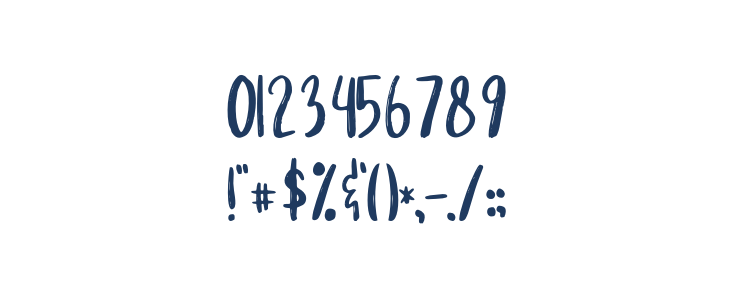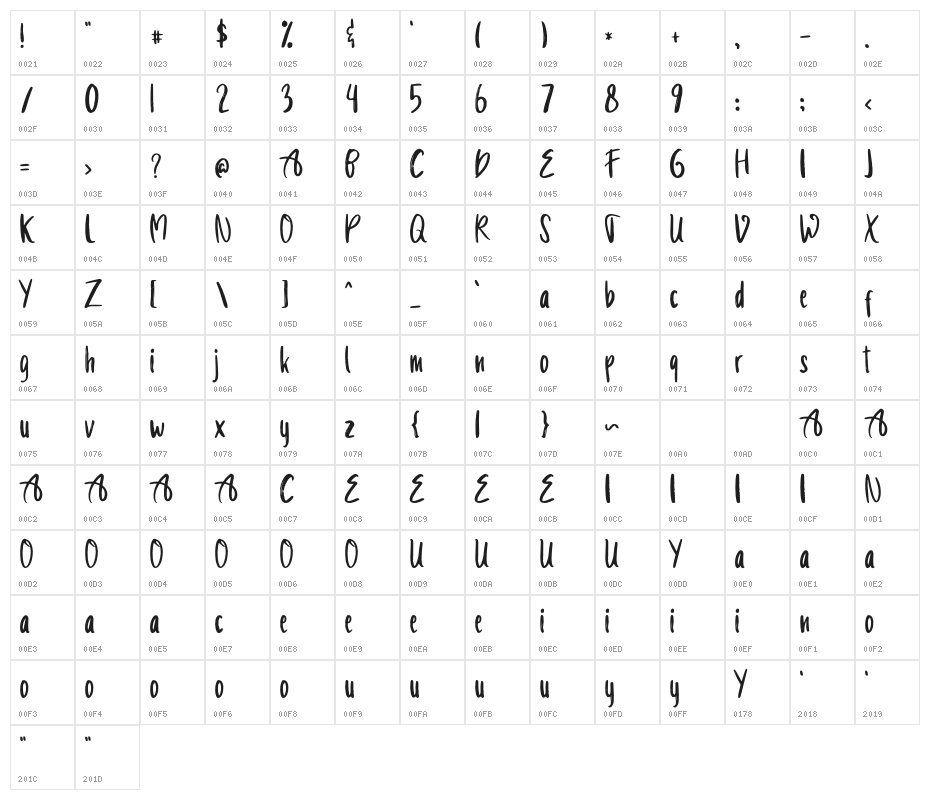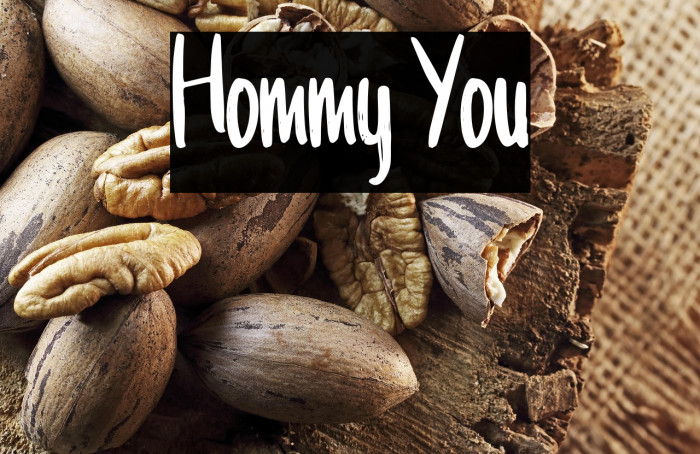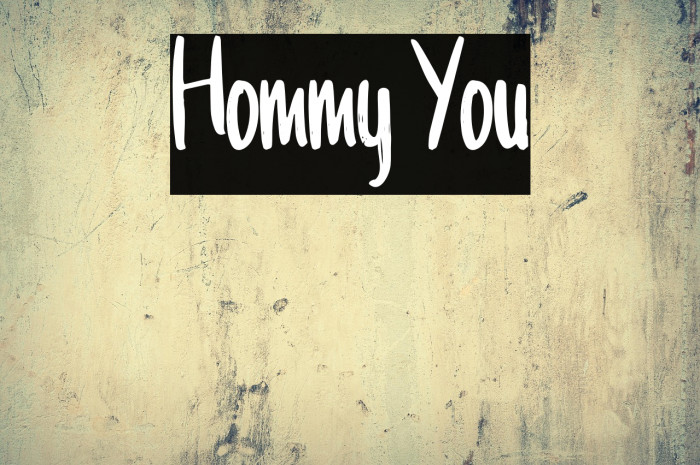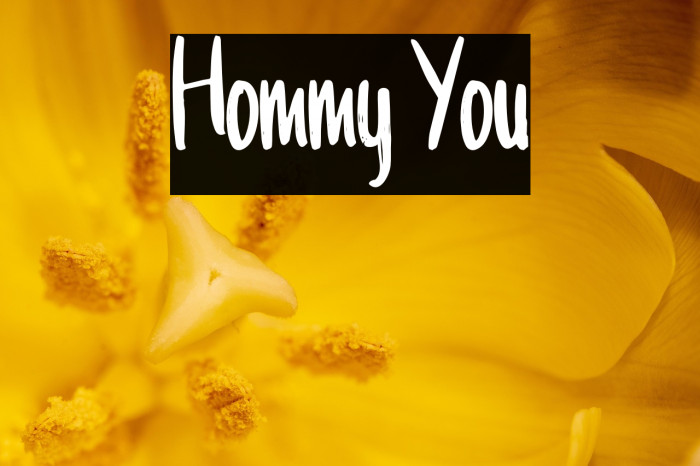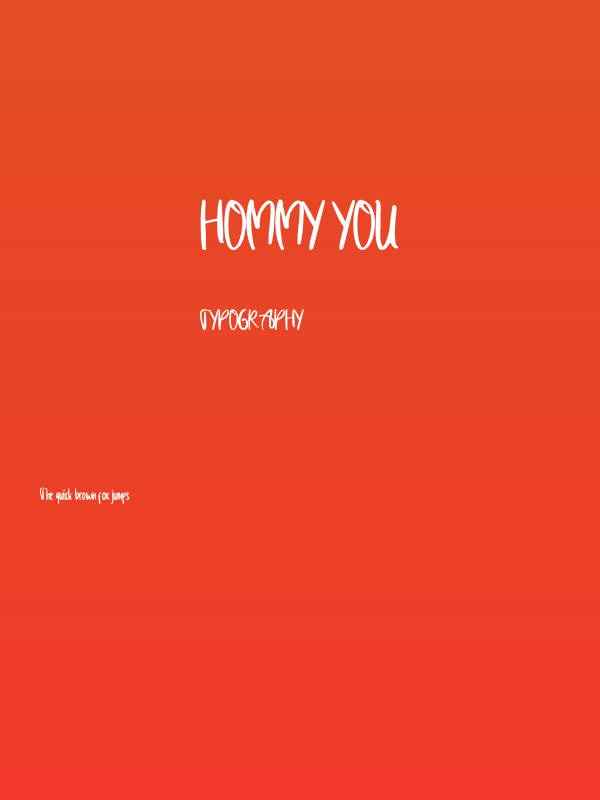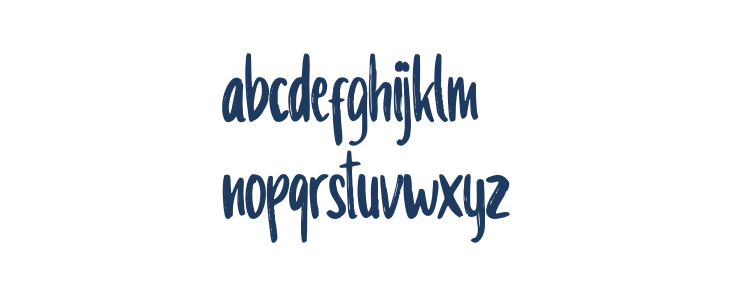
Hommy You Font
Hommy You Description
This font features a bold and expressive handwritten style, characterized by its dynamic and fluid strokes. The letters have a casual and playful appearance, with varying thickness that adds a sense of movement and energy. The uppercase and lowercase letters maintain a consistent style, while the numerals and special characters complement the overall aesthetic. The font's organic feel makes it suitable for projects that require a personal touch or a creative flair.
| Proposed Projects | Ideal for greeting cards, posters, branding, and social media graphics. |